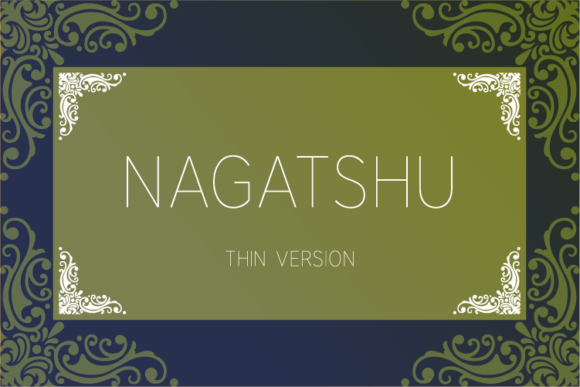
HomeSans Serif FontsNagatshu Thin Font Sans Serif Fonts Nagatshu Thin Font FacebookXPinterestWhatsApp Nagatshu Thin Font 1 of 2 About Nagatshu Thin Font Nagatshu is inspired by classic typography and brings its own unique style to any design project. Use this gorgeous and unique sans serif font to bring any DIY project to life! DOWNLOAD NOW People also explored Simple Monoline Font Sweet Grace Font Hello Valentine Font Deep Blue Sea Font Purple Triblend Bella Canvas 8413 Mockup Carnivals Font Vanilla Candy Font Aella Font Bootstrap 341 0 TagsNagatshu Thin Font Previous articleNagatshu Extra Light FontNext articleGalileo Regular Font LEAVE A REPLY Cancel reply Comment: Please enter your comment! Name:* Please enter your name here Email:* You have entered an incorrect email address! Please enter your email address here Website: Save my name, email, and website in this browser for the next time I comment. Personal Use Free Still Time Personal Use Free Read more about this font Mini Story Personal Use Free Read more about this font Squariess Personal Use Free Read more about this font Charlie Personal Use Free Read more about this font BLOG Using Fonts in Digital Marketing: Tips to Strengthen Your Brand Identity In the realm of digital marketing, every visual element plays a crucial role in shaping a brand's identity, and fonts are no exception. The... The 10 Best Handwriting Fonts to Add Personality to Your Designs Transform Your Website: Elevate Your Typography with 7 Best Web Font Generators Where to Buy American Fonts Online in 2024